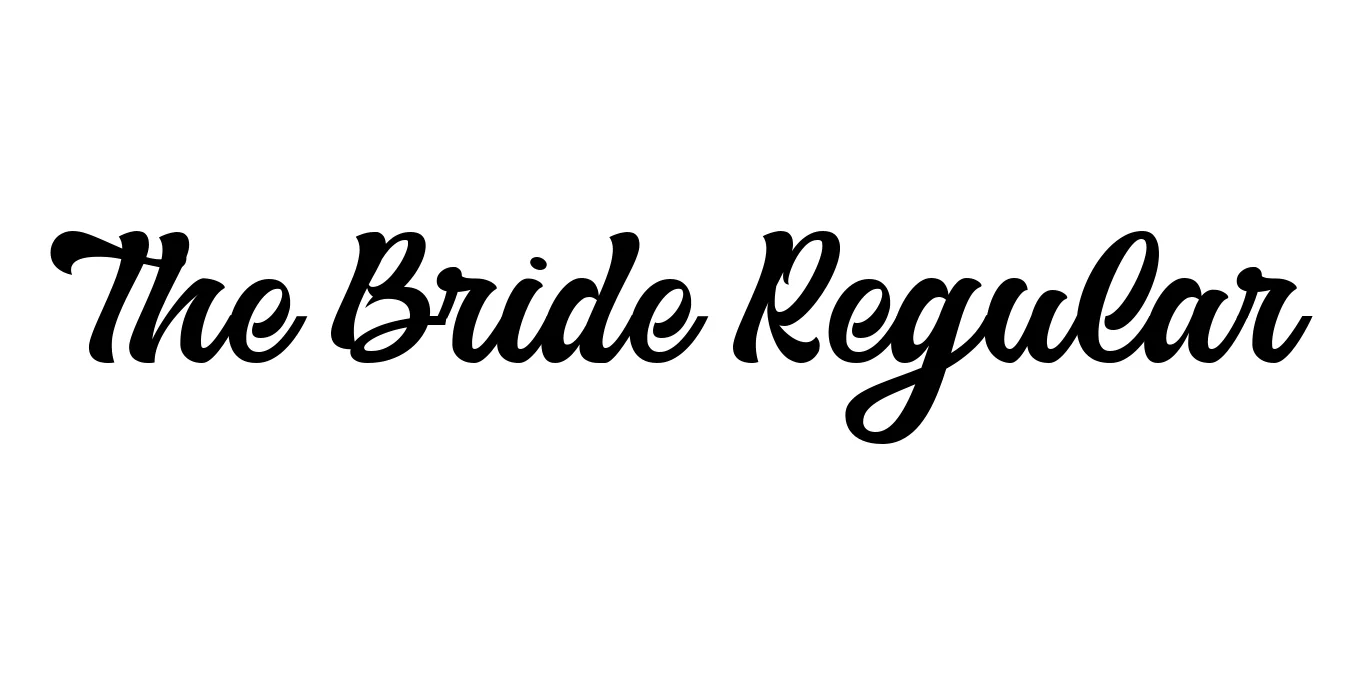
The Bride Regular
Designed by Billy Argel
The Bride Regular is an elegant and sophisticated script typeface designed by the renowned typographer Billy Argel. Characterized by its fluid, sweeping strokes and intricate swashes, this font embodies a sense of romanticism and high-end craftsmanship. It successfully bridges the gap between traditional copperplate calligraphy and modern decorative design, making it a versatile tool for designers looking to convey grace and prestige in their visual projects.
The typeface is widely celebrated for its legibility despite its ornate nature, ensuring that it remains functional for both digital and print media. The Bride Regular is particularly well-suited for high-stakes design work where first impressions are paramount. Its hand-drawn aesthetic provides an artisanal feel that adds personality to every letter, making it a favorite for wedding stationery, luxury branding, and editorial headers that require a touch of timeless beauty.
The Bride Regular Best Uses
Perfect for invitations, save-the-dates, and formal place cards.
Ideal for high-end fashion logos, beauty products, and boutique identities.
Adds a sophisticated and personal touch to inspirational quotes and aesthetic posts.
Excellent for magazine mastheads, book covers, and elegant titling.